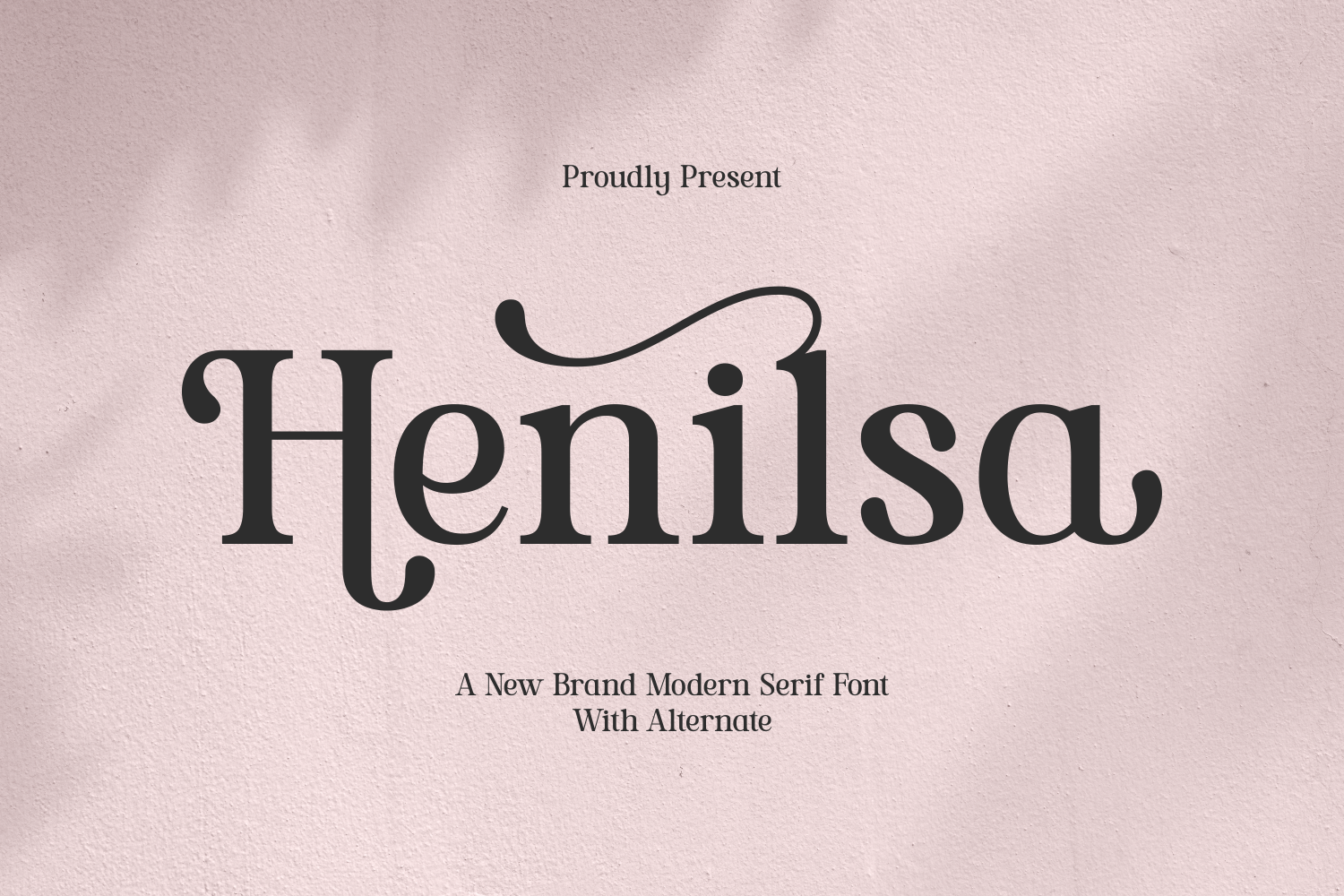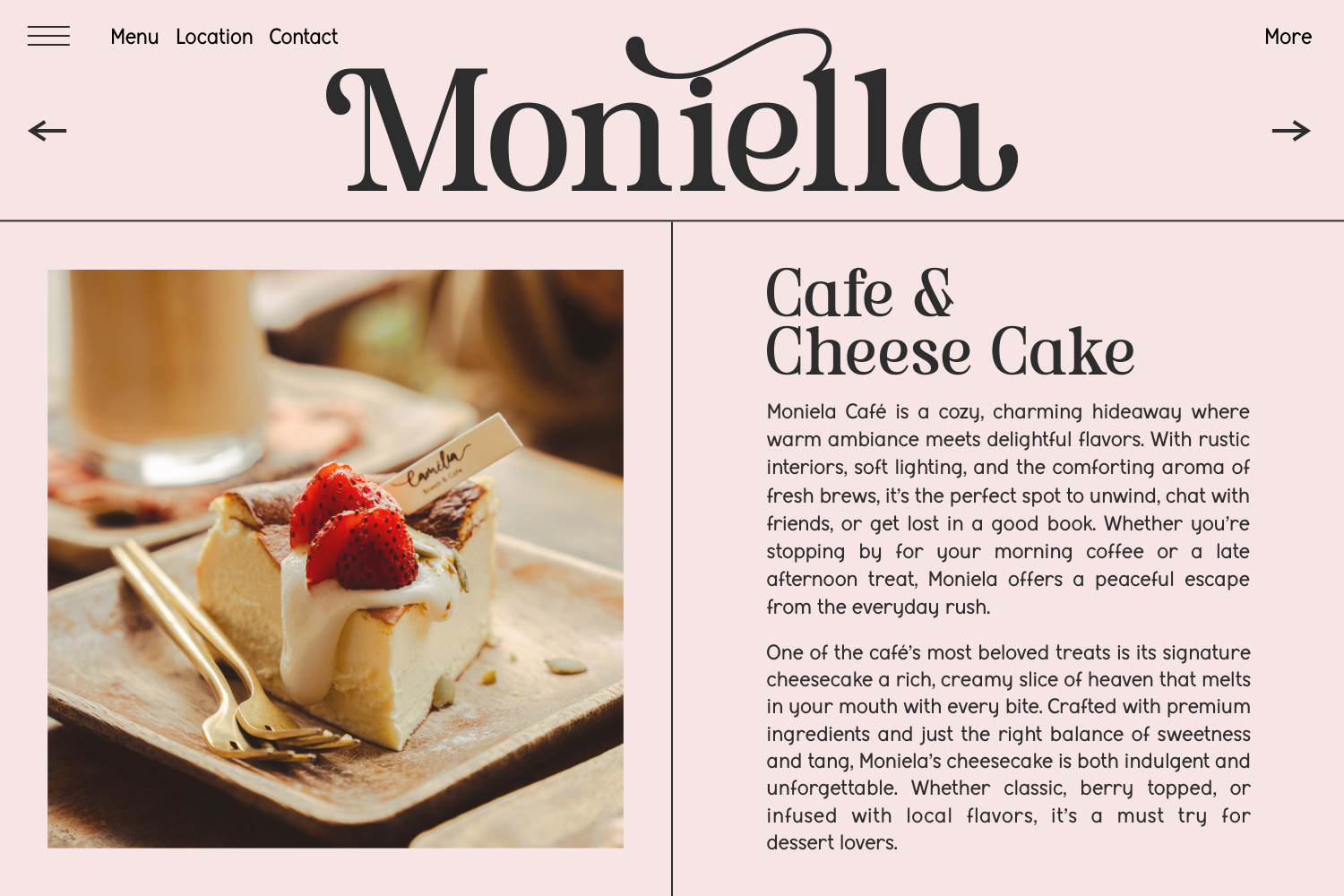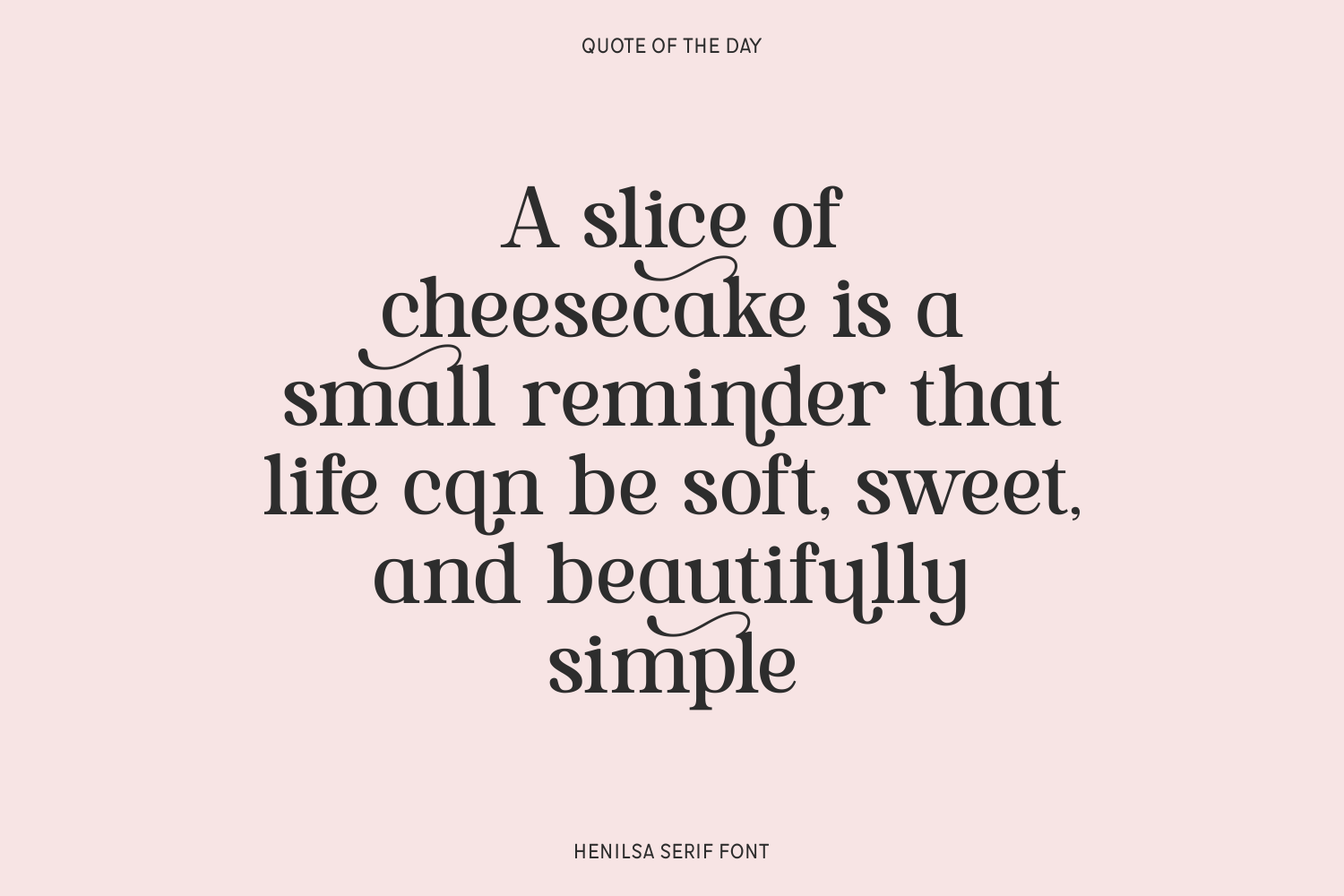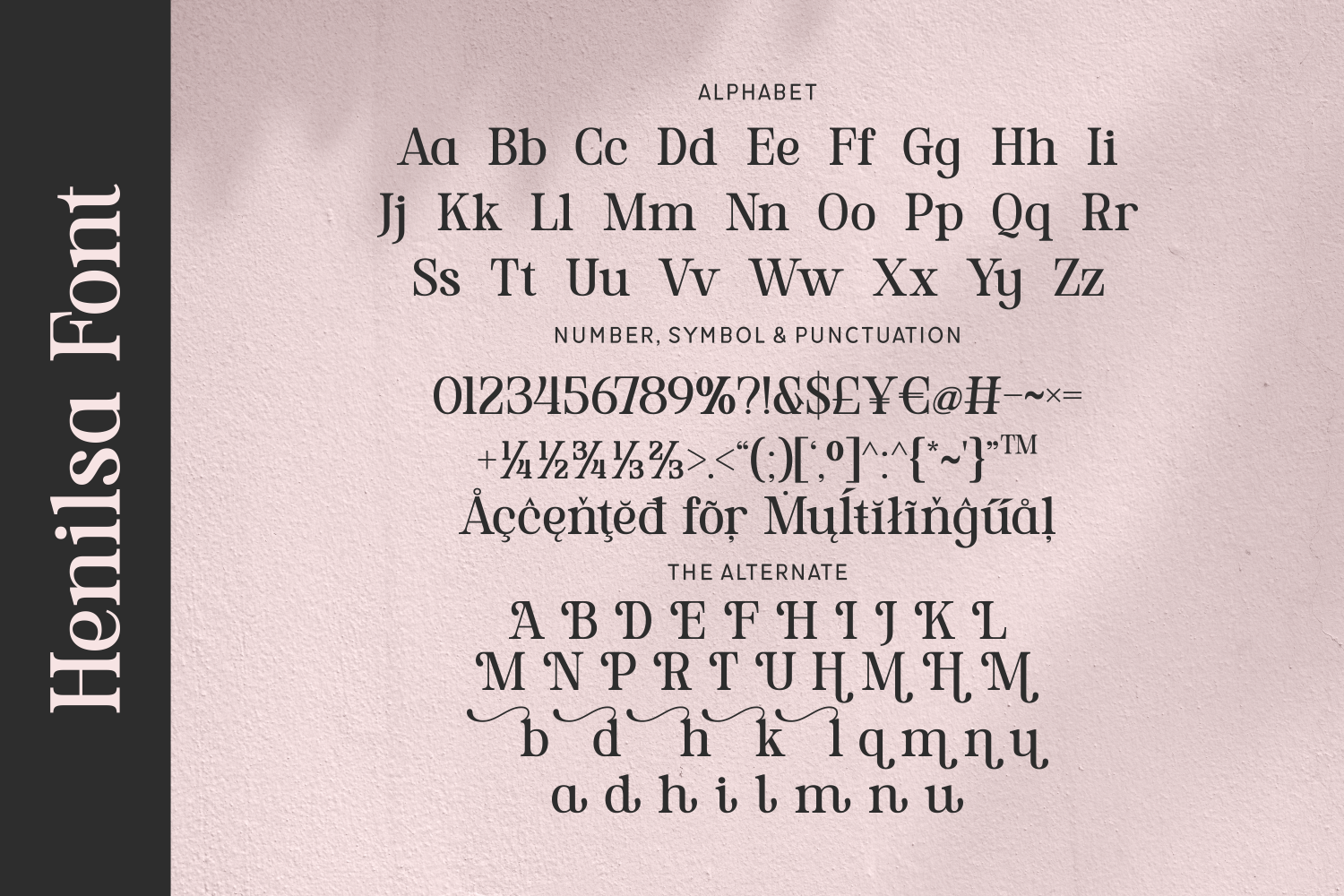
Henilsa is a charming modern serif font with soft curves and stylish alternates. Ideal for logos, stationery, and lifestyle branding, it strikes the perfect balance between tradition and trend.